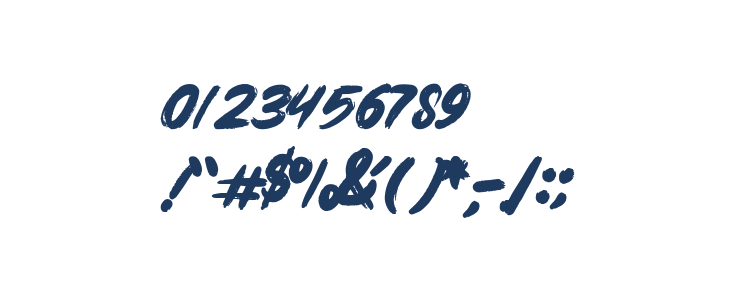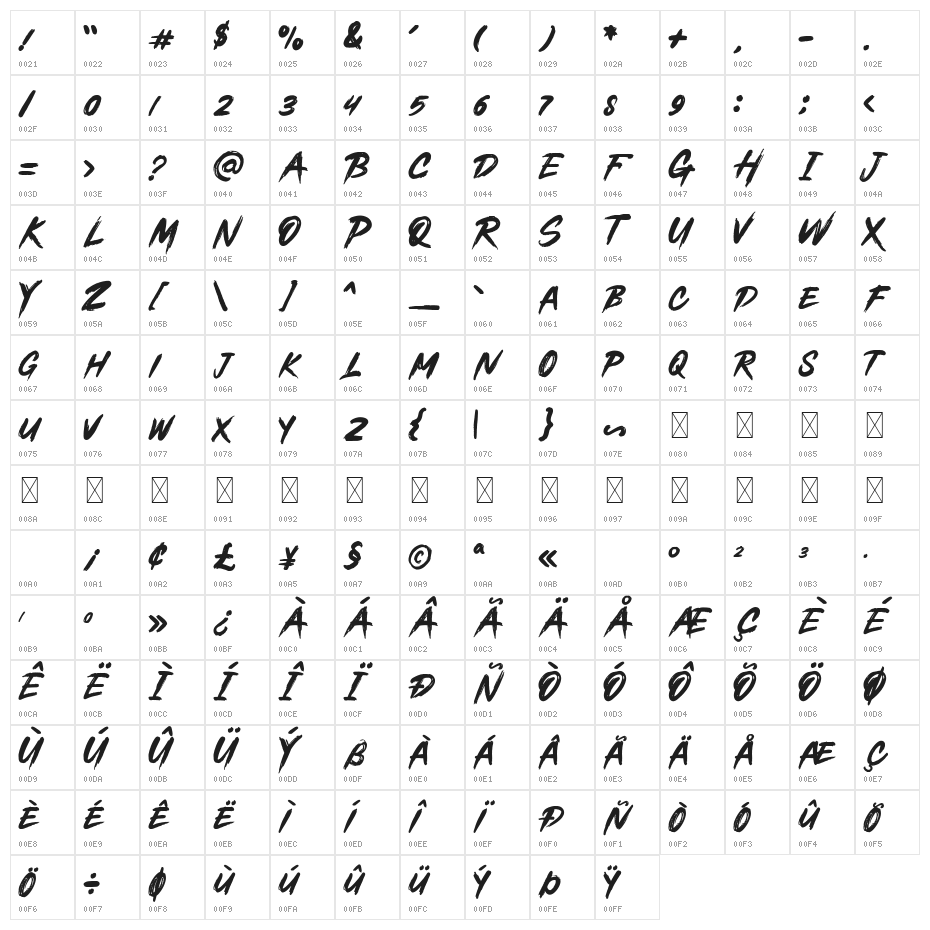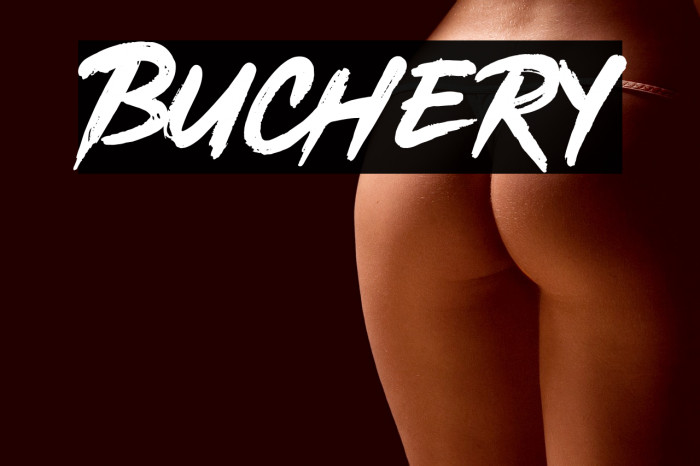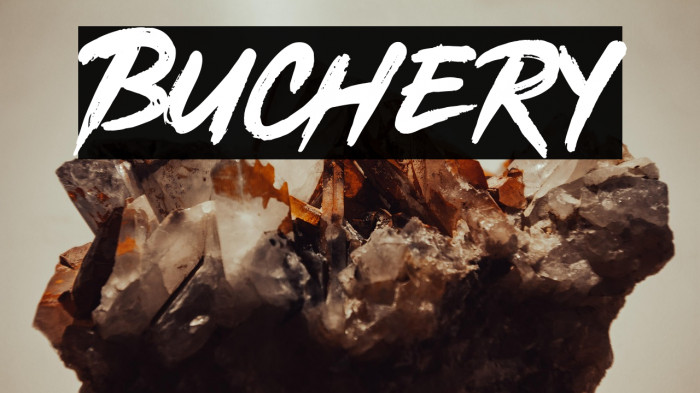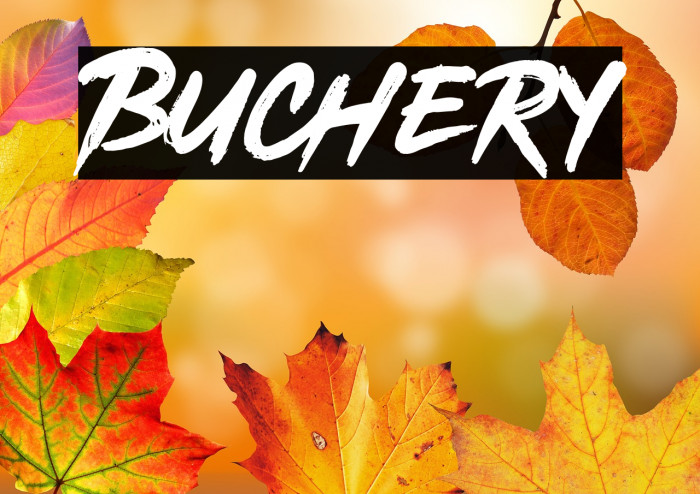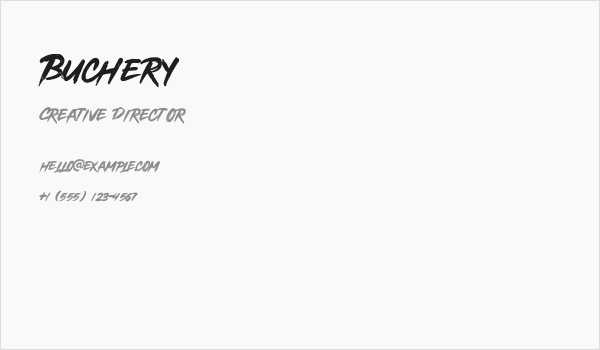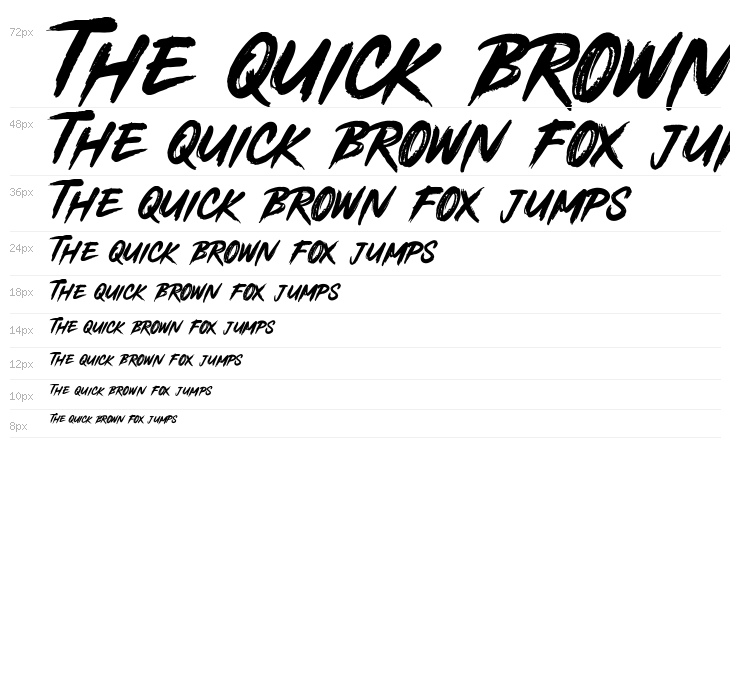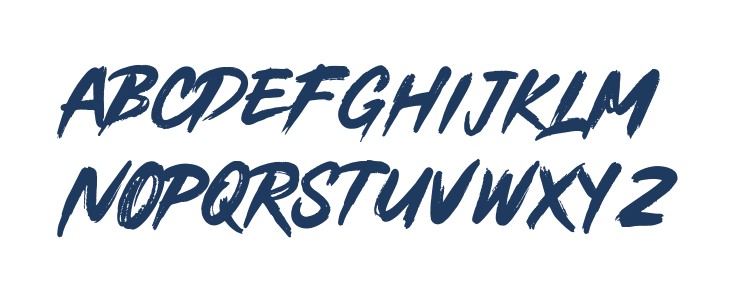
Buchery Font
Buchery Description
This font features a bold and dynamic brush script style, characterized by its energetic and expressive strokes. The letters have a hand-painted appearance, with varying thicknesses that create a sense of movement and fluidity. The uppercase and lowercase letters maintain a consistent style, with a slightly slanted orientation that adds to the font's dynamic nature. The numbers and special characters are equally expressive, maintaining the same brush-like quality. This font is ideal for projects that require a bold and artistic touch, such as posters, logos, and branding materials.
| Proposed Projects | Ideal for posters, logos, branding, and any project needing an artistic flair. |